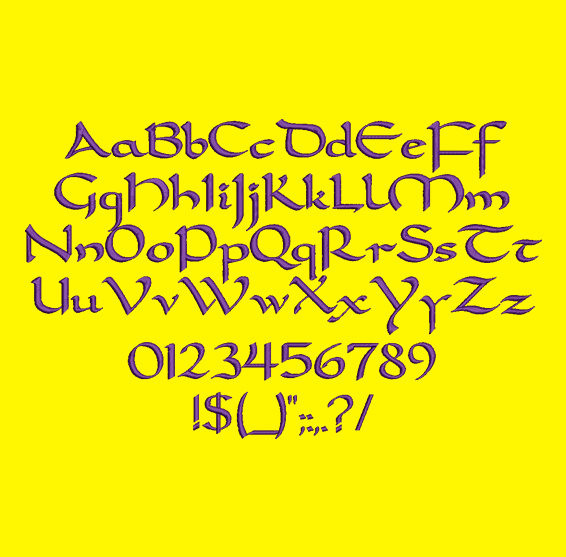
Celtic BX embroidery font
Title: Carolingia machine embroidery font
This Carolingia font is perfect for personalizing clothes, bags, towels and linens!
This beautiful font would look amazing as a Monogram on Totes, School bags and purses!